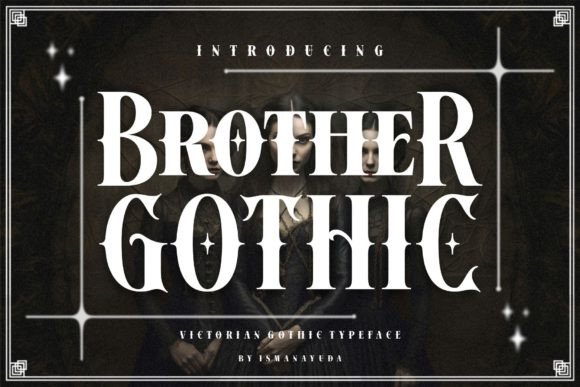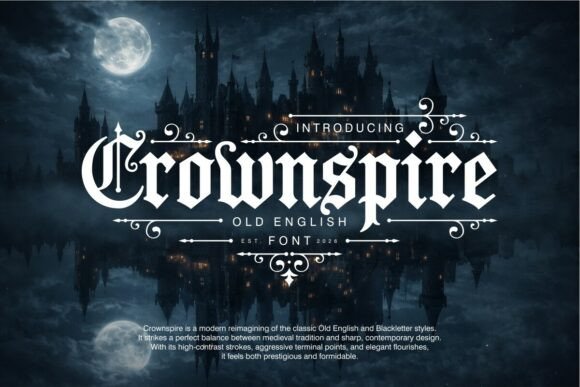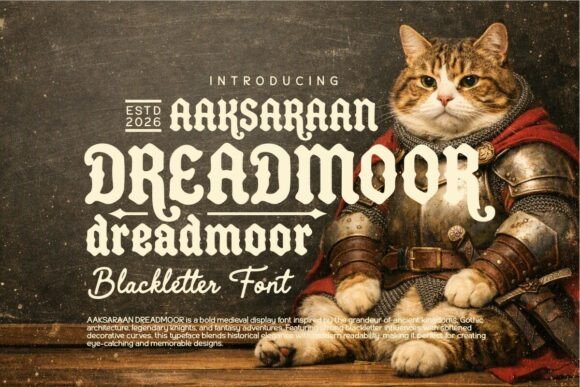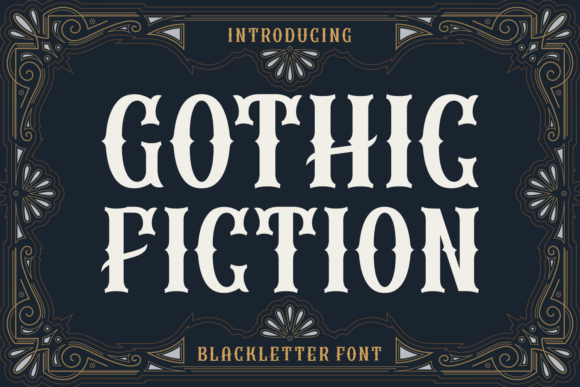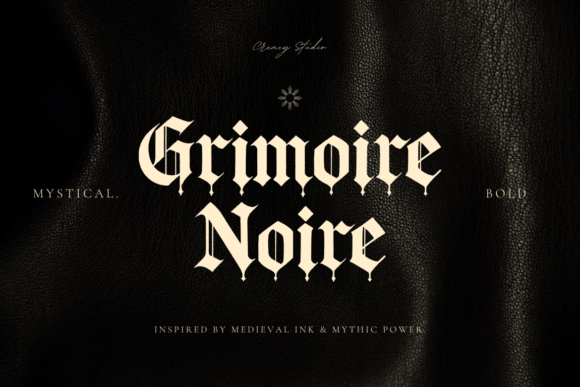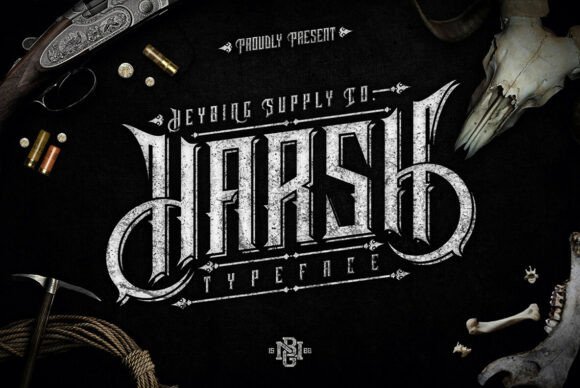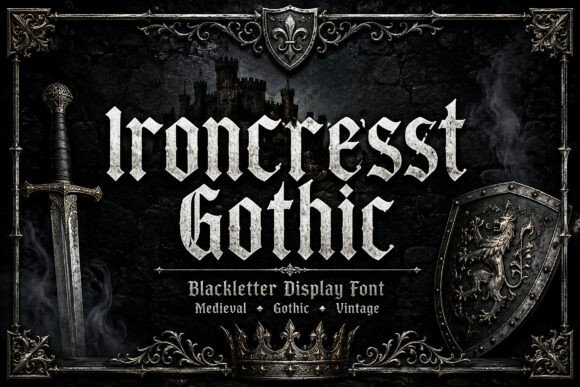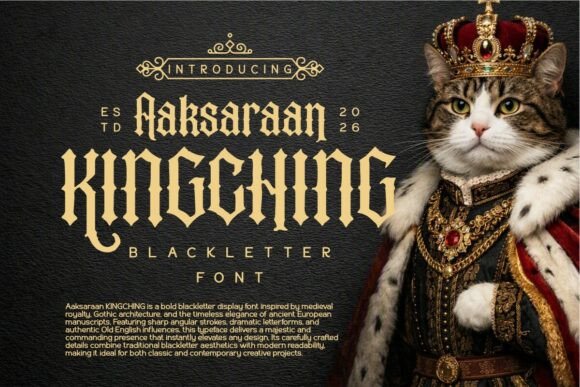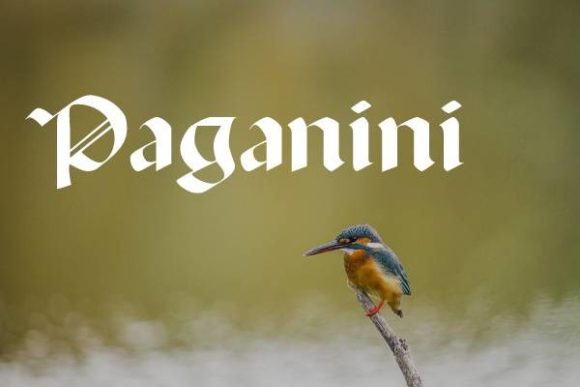
Blackletter is the oldest trick in the dark-design playbook, and it still works: those dense, angular strokes read as medieval, authoritative, and slightly menacing before anyone parses a single word. The trouble is that most gothic fonts sold today are thin imitations that fall apart the moment you set them at a real size. These 25 gothic fonts hold up. They are ranked into three tiers below, so you can start at the top and stop whenever you have found what your project needs.
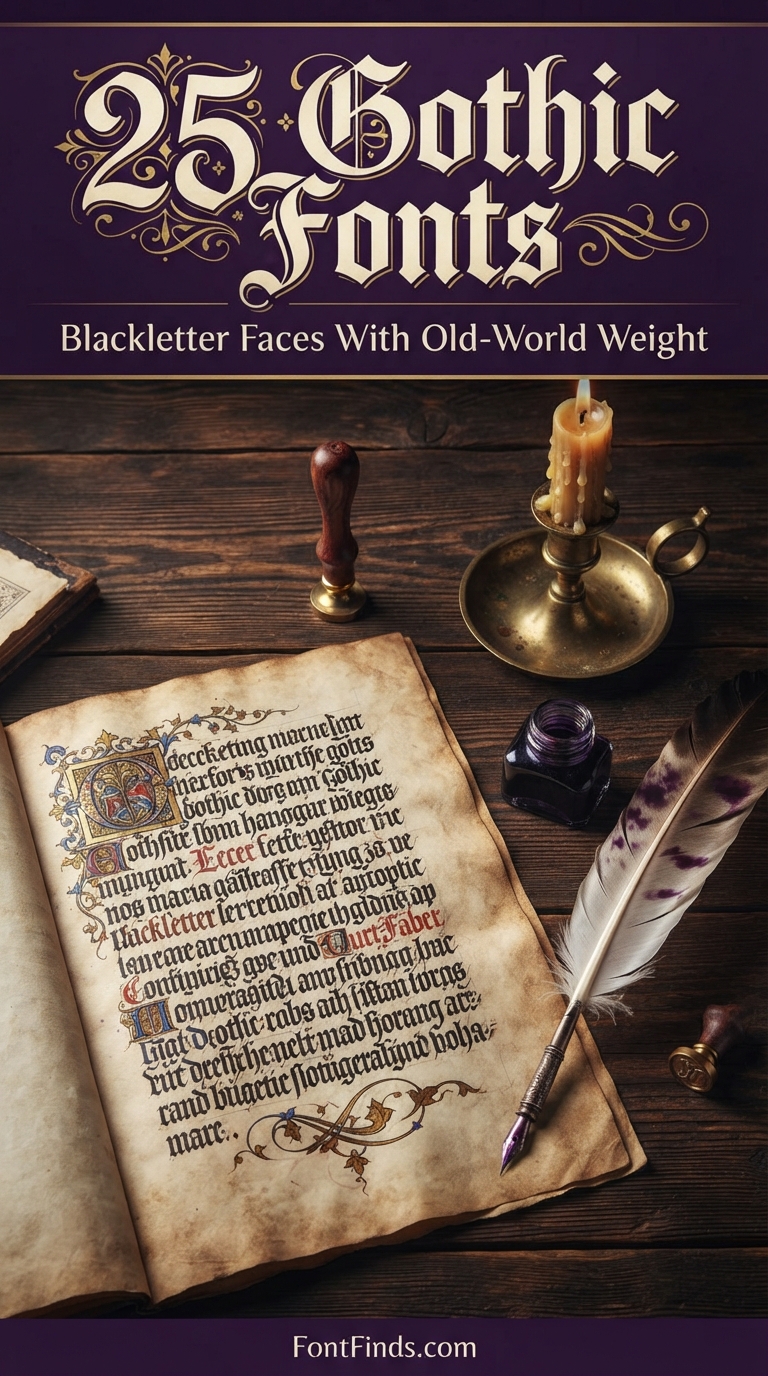
The Short Version
| Rank |
Font |
Tier |
| #1 |
Underdove |
Top Tier |
| #2 |
Scarlet Crown |
Top Tier |
| #3 |
Drachenveil |
Top Tier |
| #4 |
Crownspire |
Top Tier |
| #5 |
Modern Blackletter Mega Bundle |
Top Tier |
| #6 |
Kingching |
Top Tier |
| #7 |
Ragnar Gothic |
Strong Runner-Up |
| #8 |
Black Valor |
Strong Runner-Up |
| #9 |
Grimoire Noir |
Strong Runner-Up |
| #10 |
Sam |
Strong Runner-Up |
Full write-ups and the remaining 15 gothic fonts follow below.
What Separates a Good Gothic Font From a Cheap One
Real blackletter follows rules borrowed from broad-nib calligraphy: consistent stroke contrast, tight and even spacing, and terminals that resolve cleanly instead of trailing into noise. Cheap gothic fonts break at least one of those, usually spacing, which is why so many look fine in a two-word preview image and fall apart in an actual headline. When you test one of the gothic fonts below, type a full sentence in caps and lowercase before committing, not just the designer’s sample word.
Blackletter also carries genuine historical baggage worth knowing about. The style descends from medieval European manuscript hands and stayed in mainstream German print use into the twentieth century, which you can read more about in the history of blackletter type. Context matters when you are choosing a face for a brand rather than a Halloween poster.
Top Tier: The Six Worth Buying First
These handle detail, spacing, and scale better than anything else on the list.
#1
Underdove
Underdove Typeface – A Gothic Tribute to Elegance and Authority Introducing Underdove Typeface, a meticulously designed blackletter font that draws its soul from the Victorian era’s ornamental engravings and the enduring sophistication of classical calligraphy.
#2
Scarlet Crown
Scarlet Crown is a powerful gothic blackletter display font inspired by medieval calligraphy, dark aesthetics, and classic heavy metal typography.
#3
Drachenveil
Step into the shadows with Drachenveil, a condensed vintage horror font crafted to evoke classic gothic tales and dark medieval folklore.
#4
Crownspire
Crownspire is a modern reimagining of the classic Old English and Blackletter styles. It strikes a perfect balance between medieval tradition and sharp, contemporary design.
#5
Modern Blackletter Mega Bundle
Modern Blackletter Mega Fonts Bundle Product Description Elevate your creative projects with the Modern Blackletter Mega Fonts Bundle, a carefully curated collection of 30+ premium blackletter, gothic, vintage, medieval, western, decorative, and display fonts.
#6
Kingching
Rule your visual designs with royal grandeur, dramatic authority, and gothic sophistication with Kingching!
Strong Runners-Up
Excellent faces that lose out only on versatility or glyph coverage.
#7
Ragnar Gothic
Elevate your designs with Ragnar Gothic, a powerful and expressive Old English font that bridges the gap between medieval tradition and contemporary bold aesthetics.
#8
Black Valor
Black Valor is a strong blackletter display font inspired by classic gothic and Old English typography.
#9
Grimoire Noir
Unveiling Grimoire Noir: a classic Gothic blackletter typeface that serves as your encrypted passageway to the irresistible charisma of the Medieval epoch.
#10
Sam
Sam: Ornate Calligraphic Blackletter Font Command attention with Sam, a premium blackletter font that defines gothic majesty.
#11
Black English
Introducing “Black English” – a powerfully dramatic blackletter font that effortlessly combines the charm of Old English tradition with the mysterious aura of Gothic typography.
#12
Gothic Old English
Introducing Gothic Old English – your timeless traditional trove of blackletter display font.
#13
Dreadmoor
Dreadmoor is a bold medieval display font inspired by the grandeur of ancient kingdoms, Gothic architecture, legendary knights, and fantasy adventures.
#14
Brother Gothic
Introducing our new font, which we named “BROTHER GOTHIC”. This font carries the style of a Victorian typeface, but we give it a gothic and biker feel.
Pick one with generous spacing and simplified capitals, since a logo often gets reproduced at favicon size. Anything from the Top Tier section above will survive that test better than the more ornate options further down.